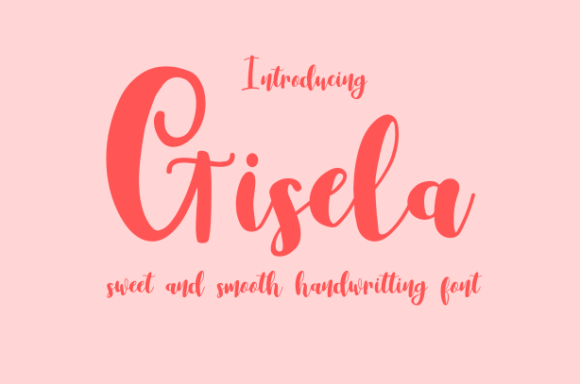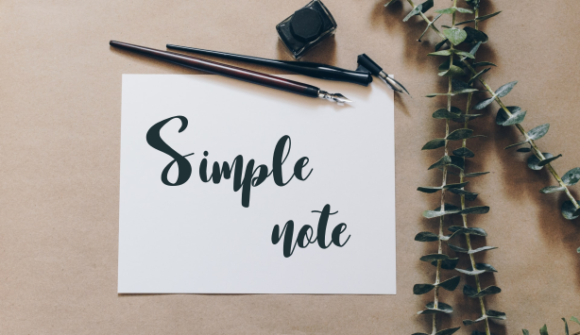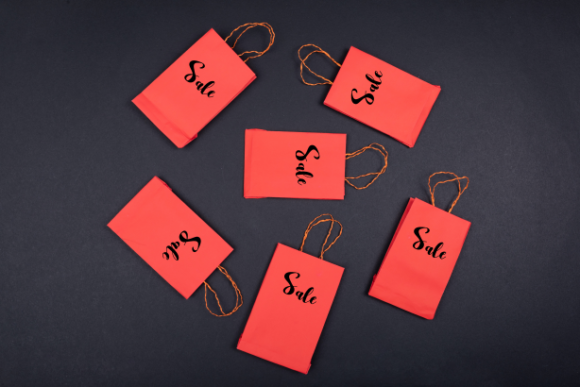
Gisela Font
About Gisela Font
Gisela is a lovely and timeless handwritten font. It is the best choice for creating eye-catching logos, branding, and quotes!